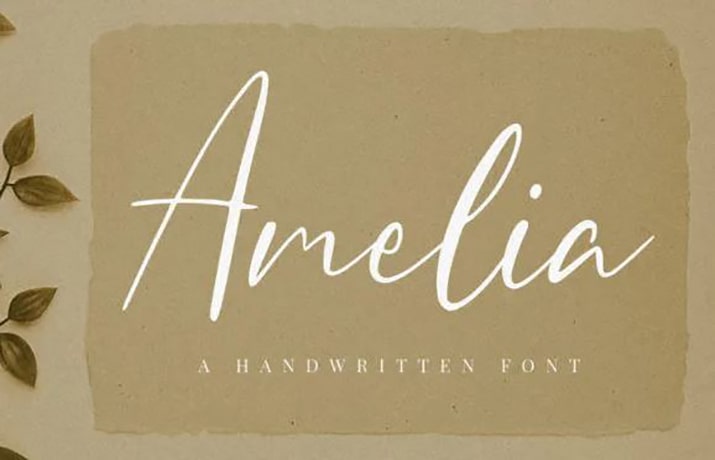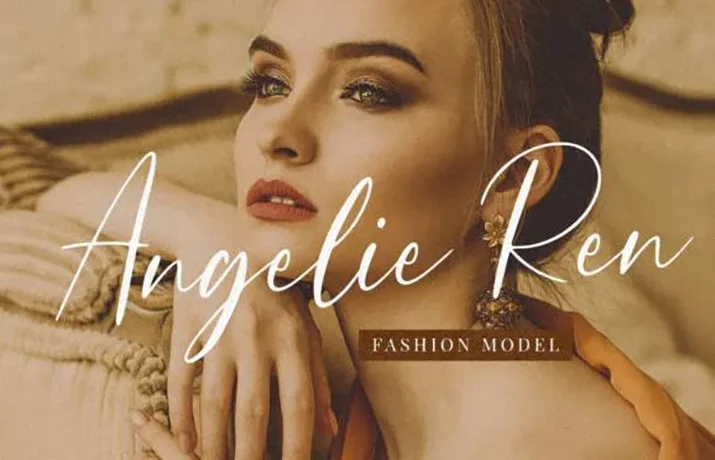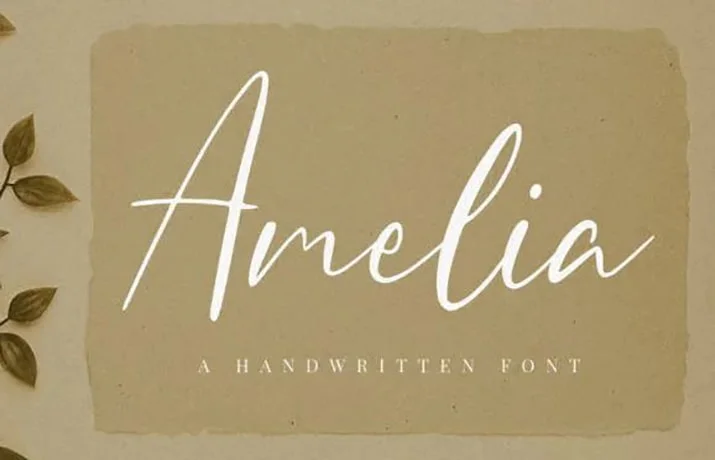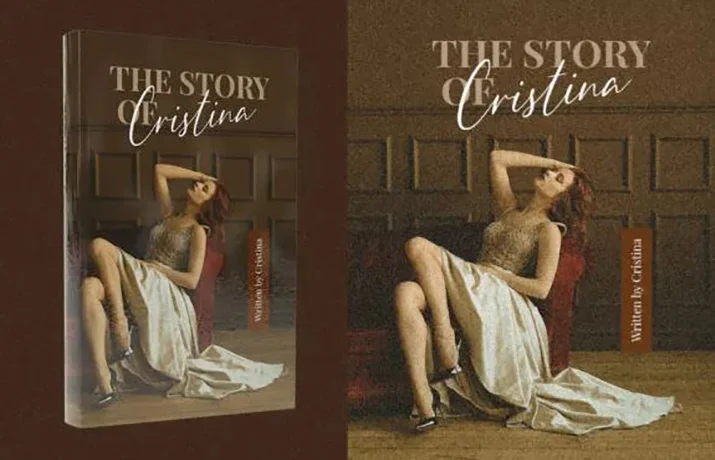
Amelia Font is a feminine, rough-striped script typeface, it will give your design a natural, casual feeling. You can use this awesome typeface in watercolor-themed, retro, and vintage-themed designs or logos.
And this font was designed by FinnaArt. This demo version was released in 2015 with new updated features.
All the textures are hand-made with the help of brushes just to give a stunning look. In each letter, the designer has added a little curve which makes it surprising and cool.
So, this typeface style is good for adding a classy touch to any size of the text. If you apply this font to your text, this font will give your text a brush pattern.
Features of This Font:
- Uppercase and lowercase letters, numbers, symbols, and punctuation
- 337 unique glyphs
- 83 multilingual languages support
Amelia Font (Details)
| Font Name: | Amelia Font Family |
| Style: | Script, Handwritten, Typeface |
| Font Designer: | FinnaArt |
Usage
It is more suitable for making website headers and footers as well as headlines, titles, professional signatures, general reports, novels, assignments, invoices, documentation, stylish quotes, product titling, logo, brochure design, quotes, and post descriptions.
It comes in three regular weights and it consists of 399 glyphs and 1000 units per em. And also supports 180 different characters including numerals, lowercase, uppercase, stylistic alternates, and many special characters.
What is a Amelia Font?
Amelia Font is a feminine, rough-striped script typeface, it will give your design a natural, casual feeling. You can use this awesome typeface in watercolor-themed, retro, and vintage-themed designs or logos.